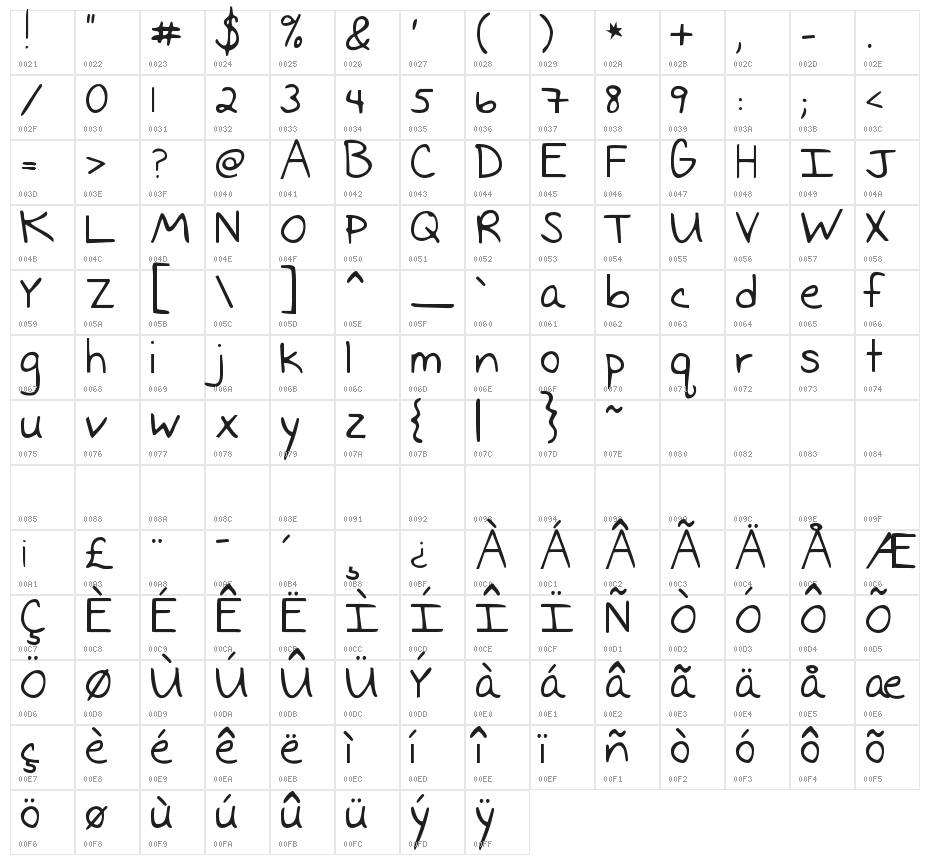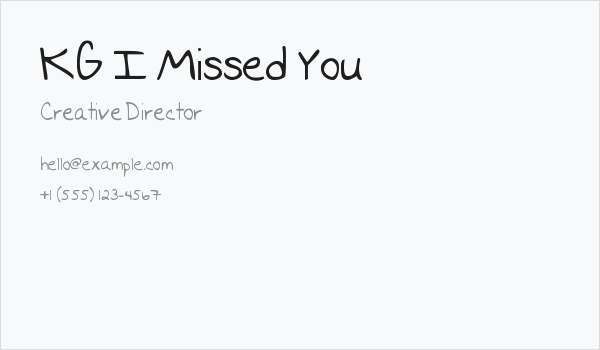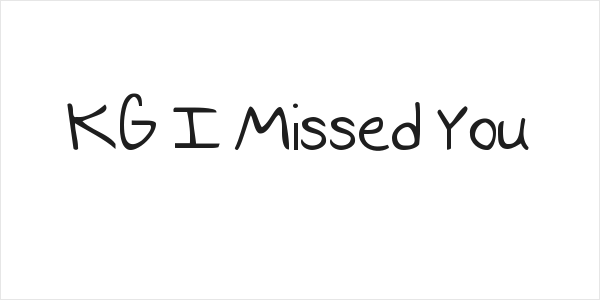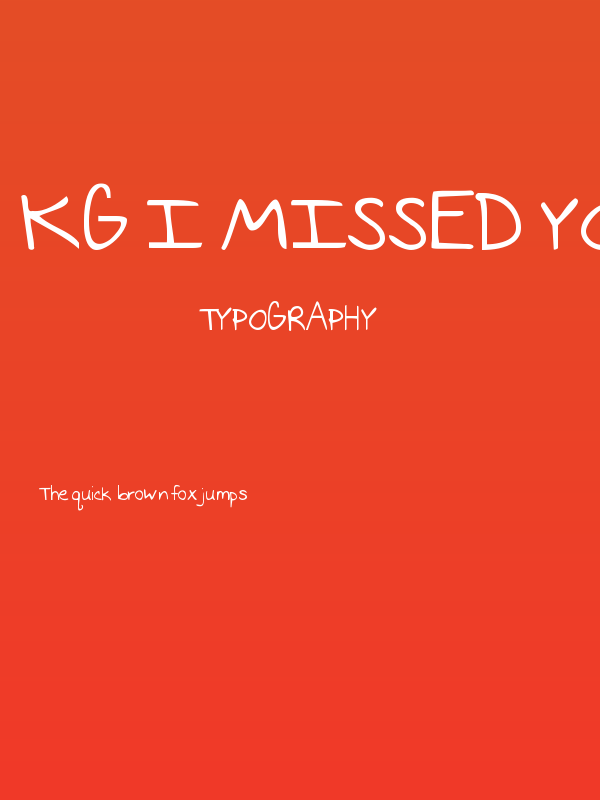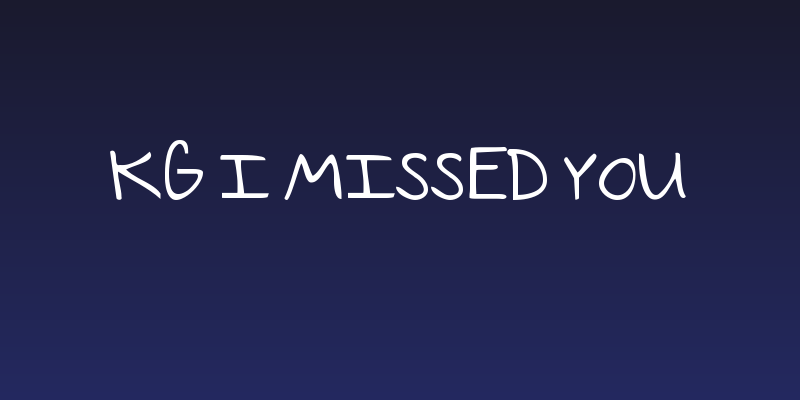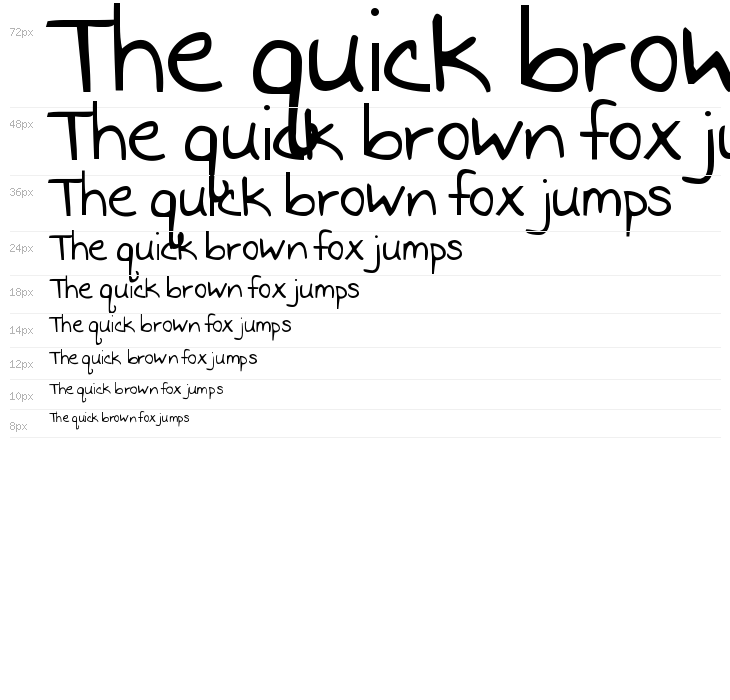
KG I Missed You Font
KG I Missed You Description
This playful and whimsical font features a handwritten style that exudes a casual and friendly vibe. The characters are slightly irregular, giving them a natural and organic feel. The uppercase letters are tall and narrow, while the lowercase letters are more rounded and open, creating a nice contrast. The numbers and special characters maintain the same playful aesthetic, making the font versatile for various uses. The strokes are consistent in thickness, providing a uniform appearance across all characters. This font is perfect for projects that require a personal touch or a fun, informal look.
| Use Case | Logos, Headlines, Informal text |
| Proposed Projects | Ideal for greeting cards, children's books, playful branding, and social media graphics. |